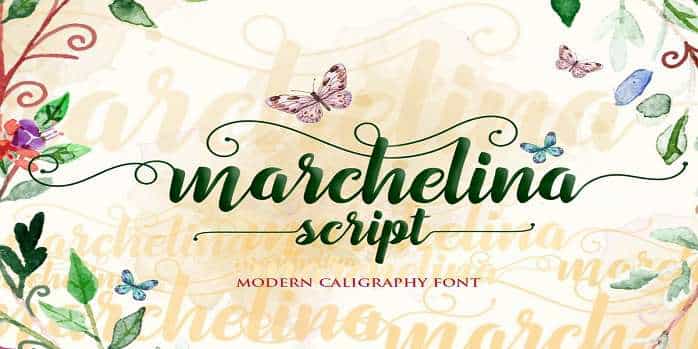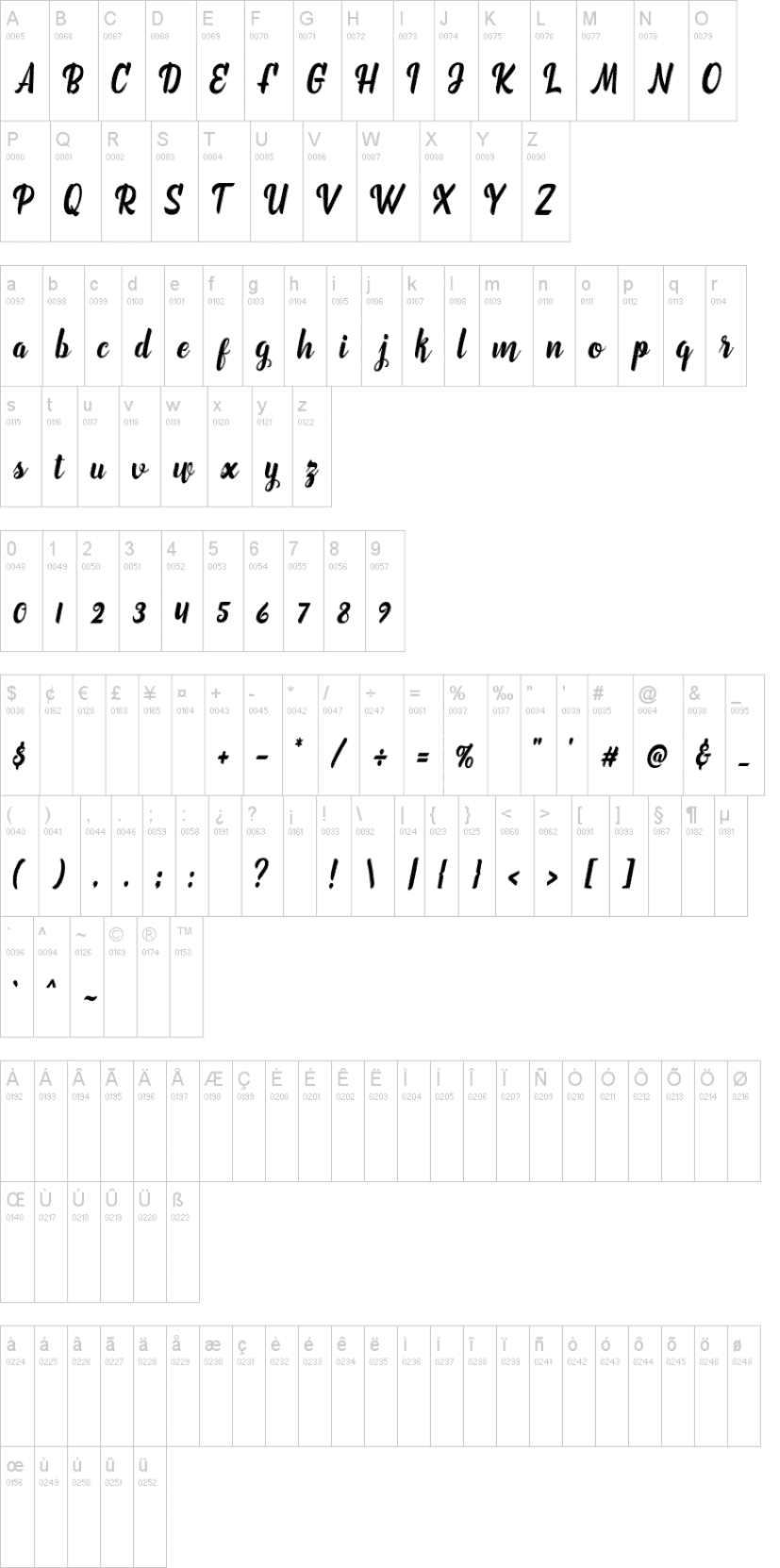
Marchelina Script Font – a free handwritten font, a wonderful font chab, a new fresh & modern script with calligraphy style. It can be used for any purpose, whether for writing a message, a quote or a slogan, for creating labels, logos, newsletters, posters, T-shirts and any other branding and packaging purposes.